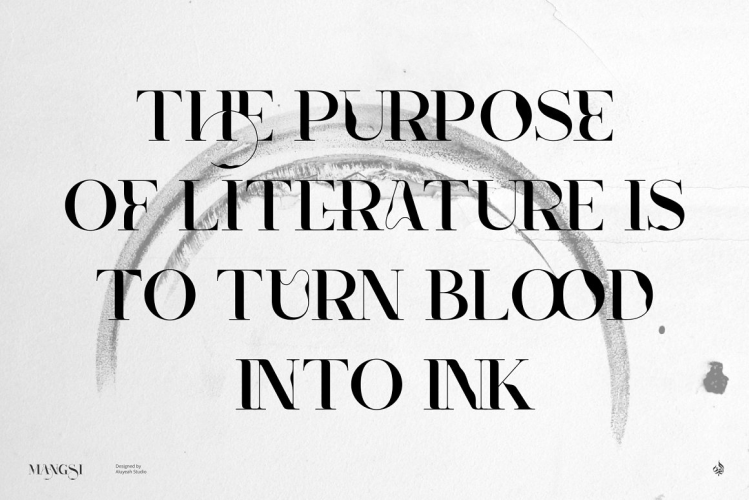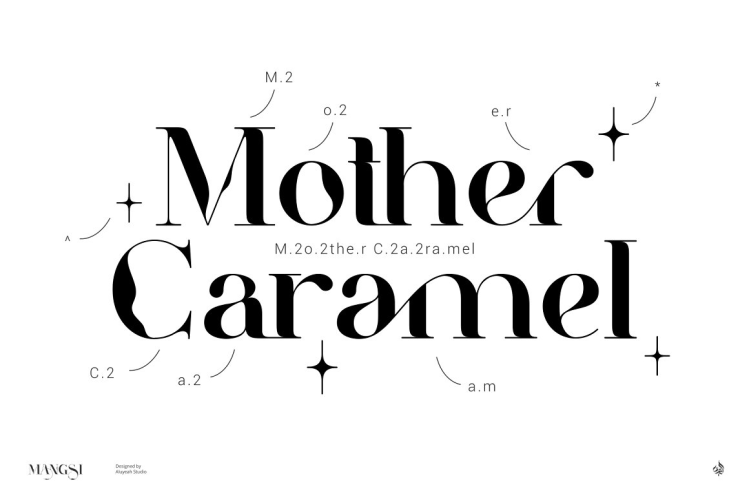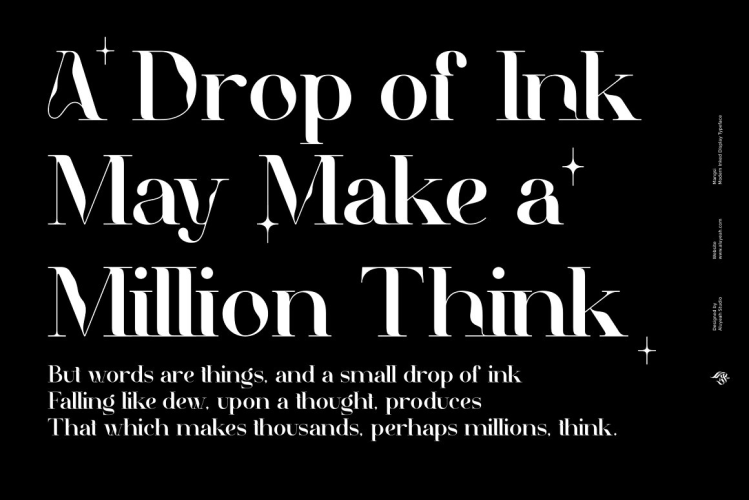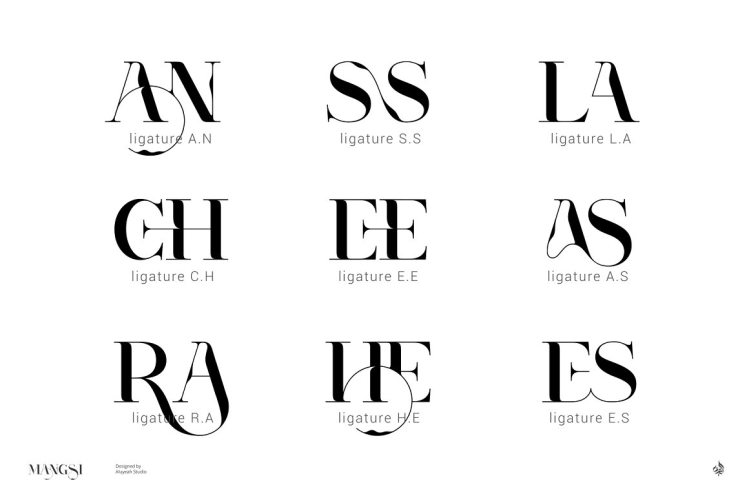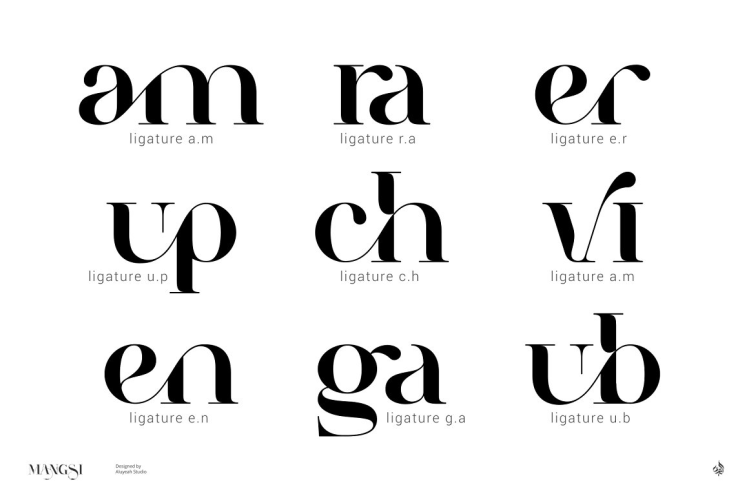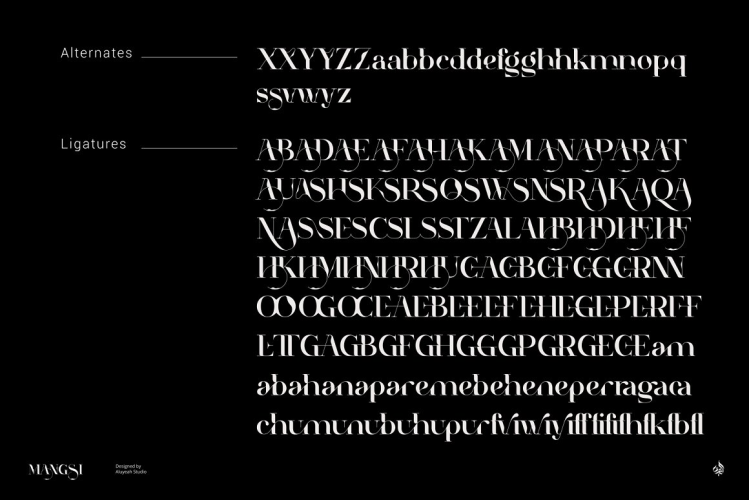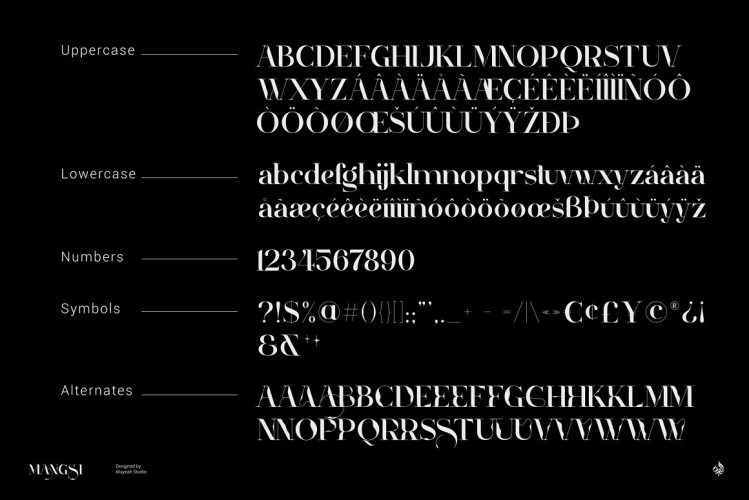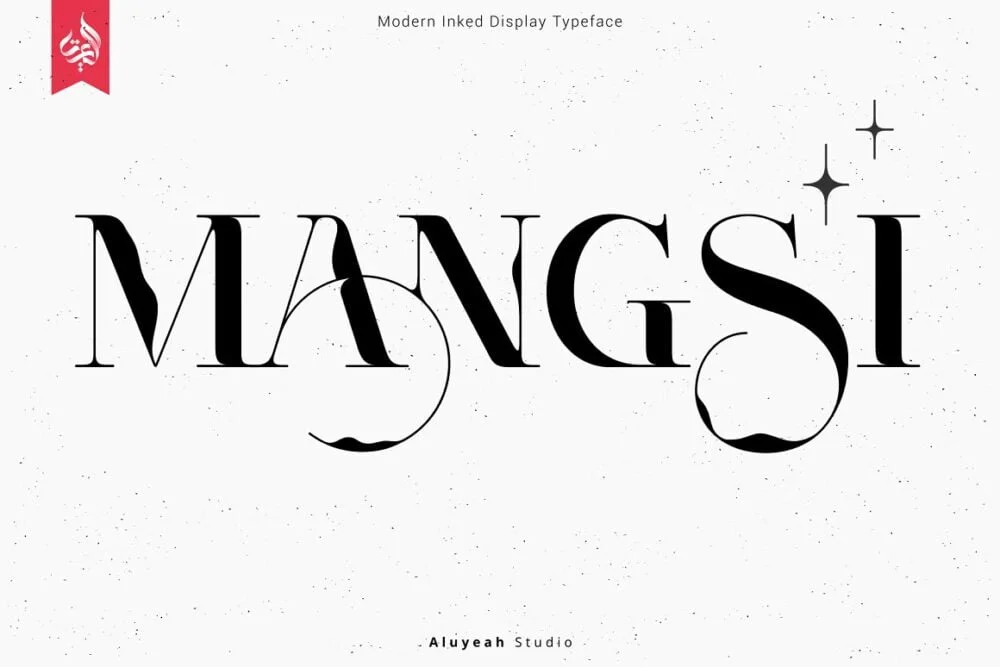
Mangsi Font
Mangsi Font in Javanese means ink. We want to create a modern display typeface with an inked-like feel by combining clean modern serif strokes, brush strokes, and the curved line made by the ink tank.
a modern inked display typeface that unites the beauty of the old lines with the clean modern lines. A simple, yet distinctive, elegant font that can be applied to many areas of design. Coming with 170+ stunning and super easy to use alternates and ligatures.
Very suitable for magazine, headline, website, ads, product package, and all type of design project you have.
Mangsi Font is a Modern Serif Font font that brings a professional and versatile look to your projects. Mangsi Font in Javanese means ink.